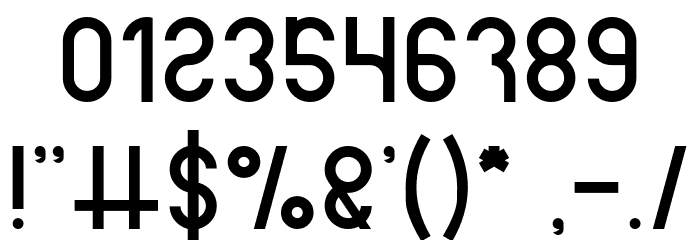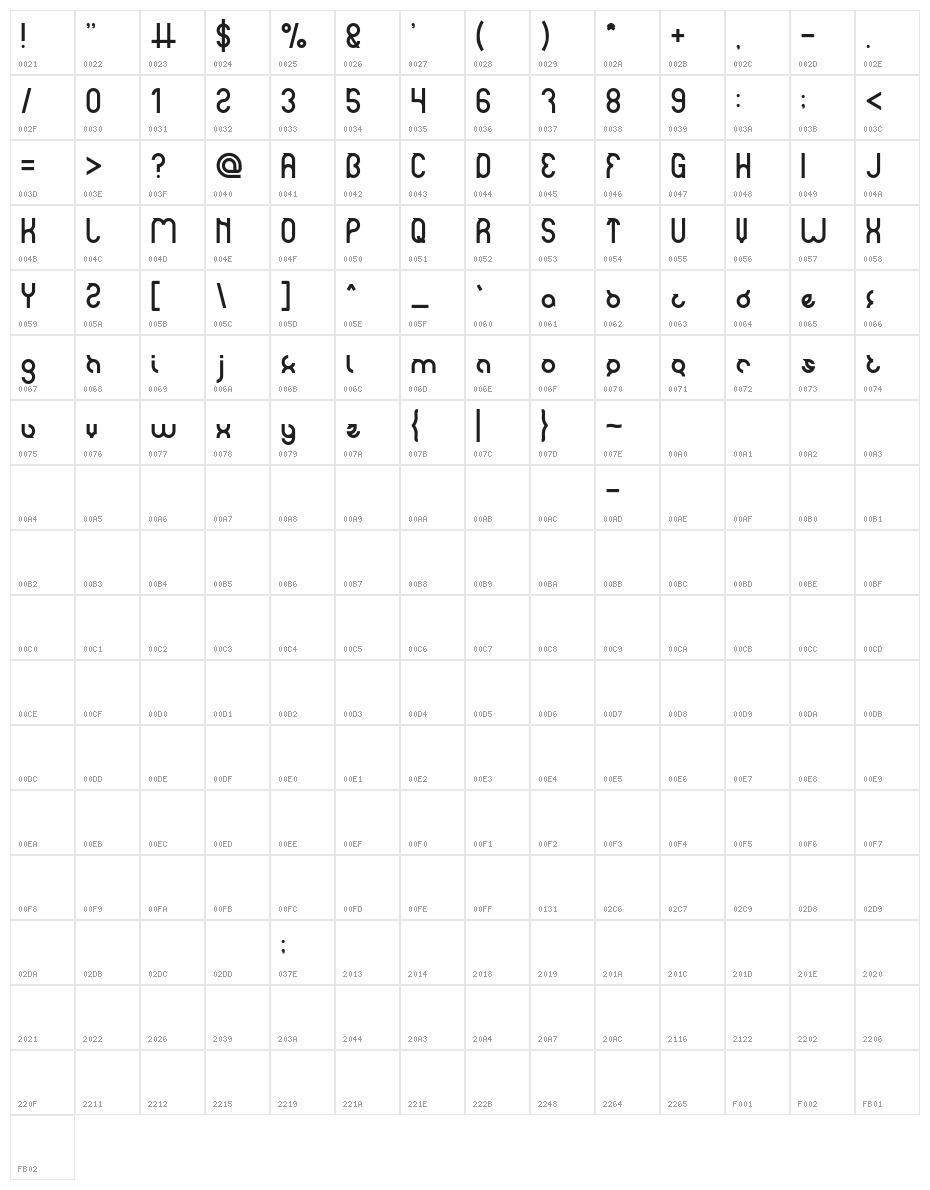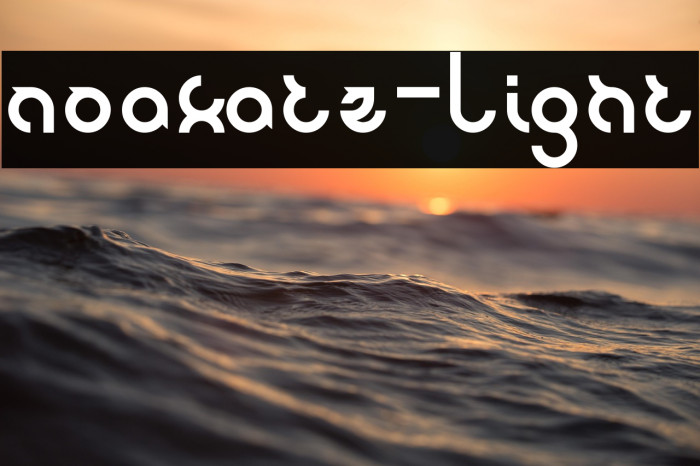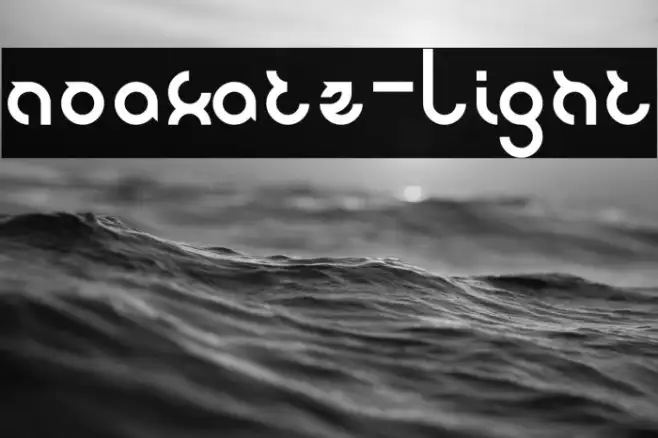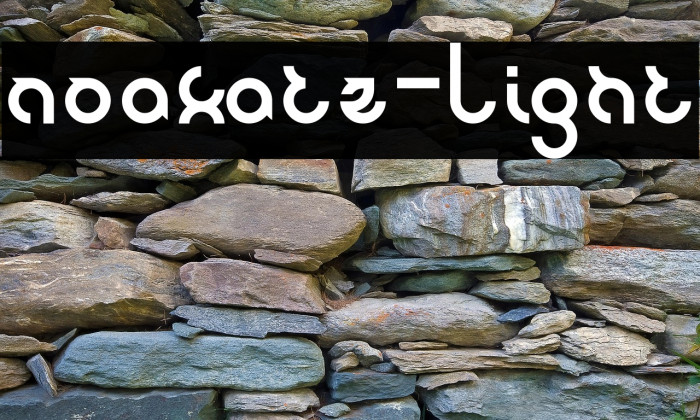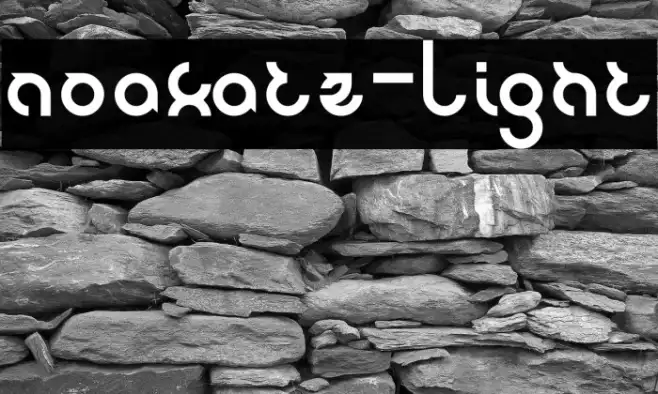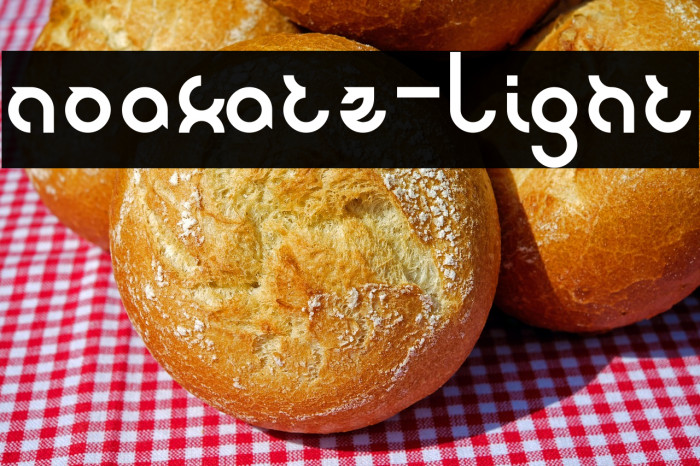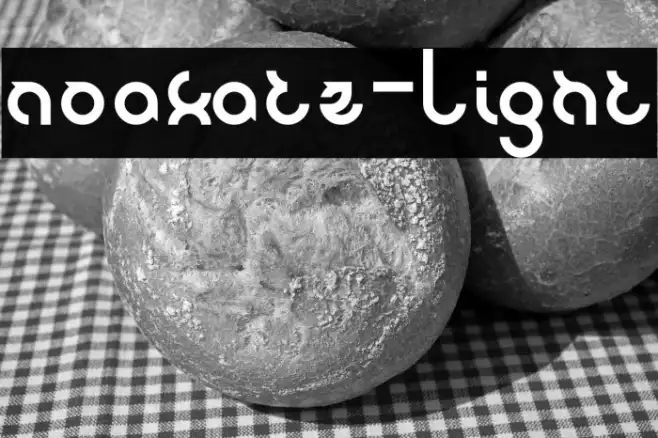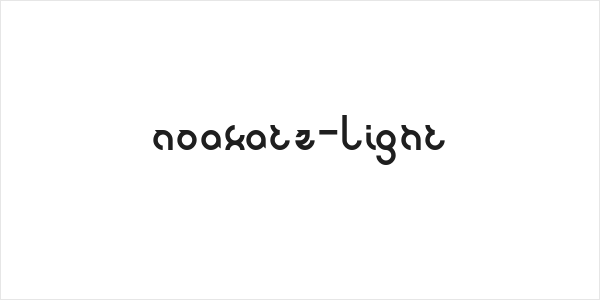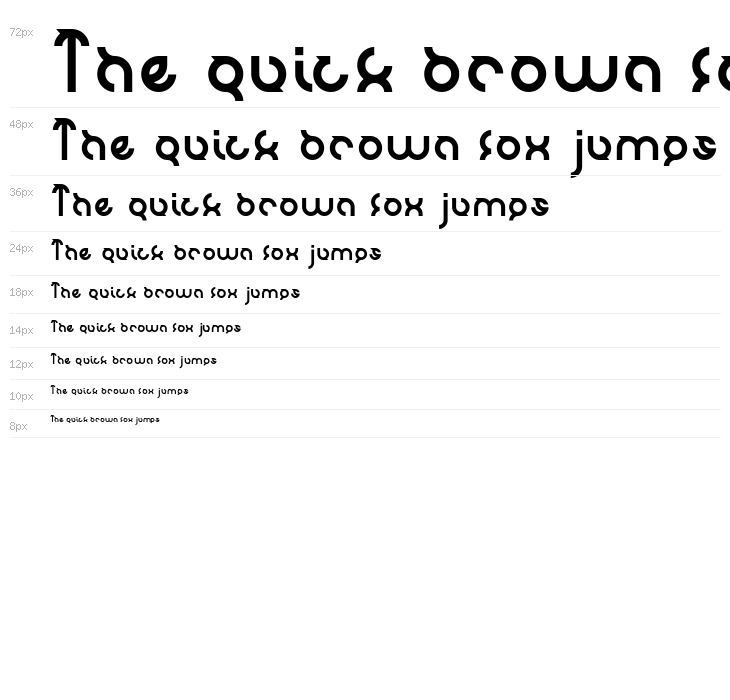
noakatz-Light Font
noakatz-Light Description
This font features a unique and modern design with a playful twist. The characters are bold and rounded, with a distinct geometric influence that gives them a contemporary feel. The uppercase letters have a strong presence, while the lowercase letters maintain a consistent style with slight variations in curves and angles. The numbers are equally bold and maintain the geometric theme, making them highly legible. Special characters are creatively designed, adding to the font's overall charm. This font is perfect for projects that require a modern yet approachable aesthetic.